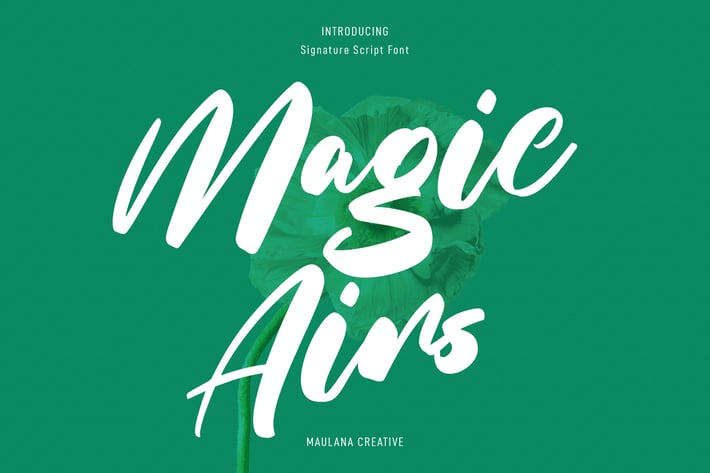
Magic Airs Script Font
Magic Airs is a Handwritten script font. With Bold Contrast stroke, fun character with a bit of ligatures. To give you an extra creative work. Magic Airs font support multilingual more than 100+ language. This font is good for logo design, Social media, Movie Titles, Books Titles, a short text even a long text letter and good for your secondary text font with sans or serif. Make a stunning work with Magic Airs font.